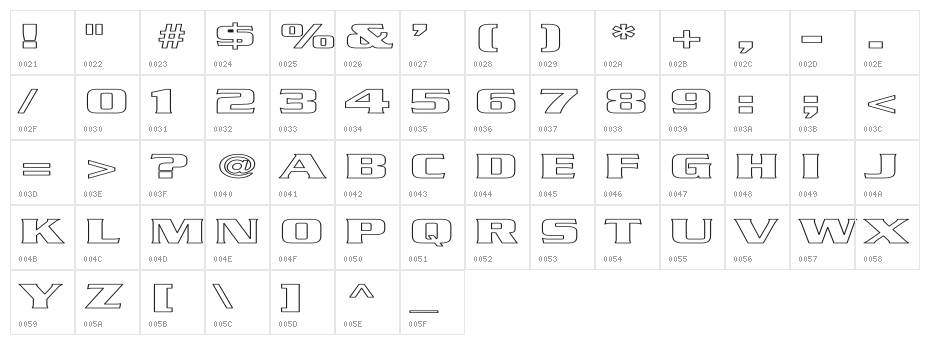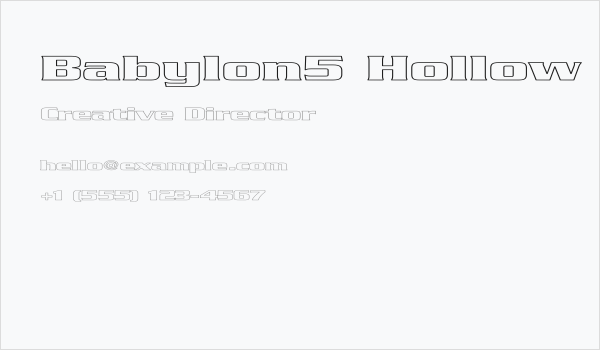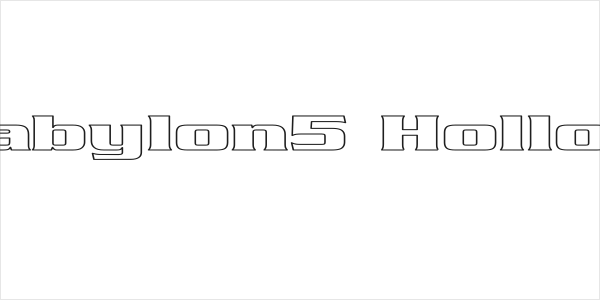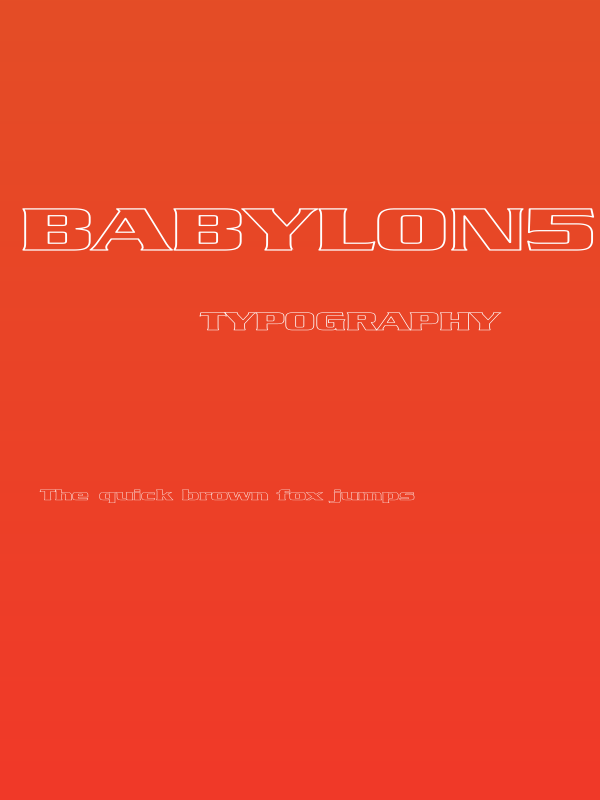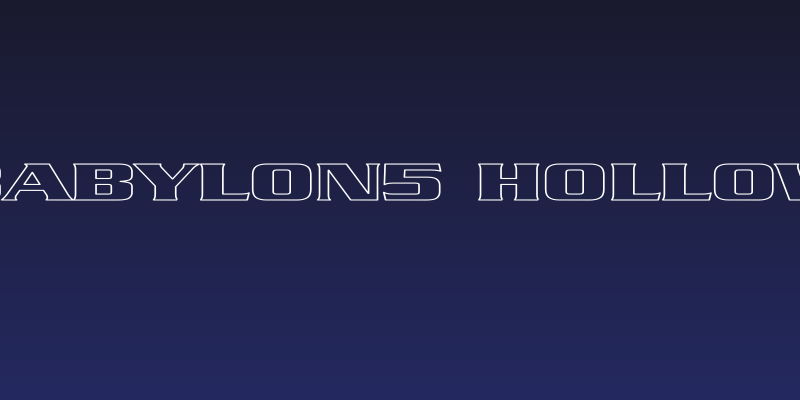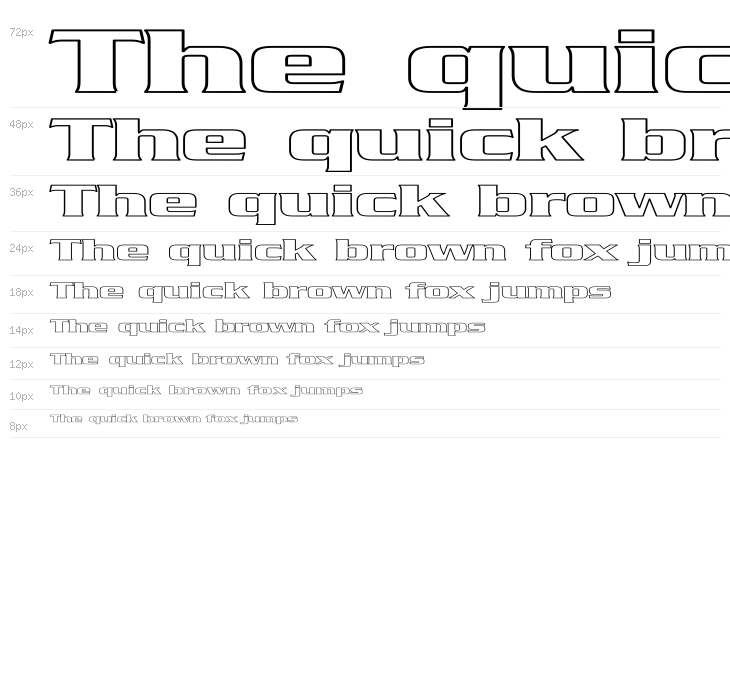
Babylon5 Hollow Font
Babylon5 Hollow Description
This font features a hollow, geometric design with a futuristic and bold appearance. The characters are outlined, giving them a three-dimensional effect that stands out on any background. The uppercase and lowercase letters maintain a consistent style, with sharp angles and clean lines that convey a sense of modernity and precision. The numerals and special characters follow the same design principles, ensuring uniformity across all glyphs. This font is ideal for projects that require a striking and contemporary look, such as sci-fi themed designs or modern branding.
| Proposed Projects | Ideal for sci-fi themed designs, modern branding, posters, and digital media. |